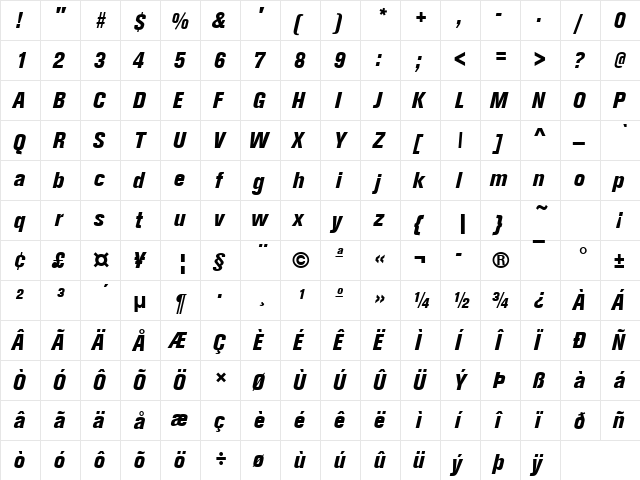
URWAccidaliaTHeaCon Italic Font Preview
URWAccidaliaTHeaCon Italic
Design Context for URWAccidaliaTHeaCon Typeface
URWAccidaliaTHeaCon takes a measured approach to typography — its balanced proportions and neutral character make it a reliable workhorse for both digital and print work. Its italic angle brings a sense of urgency and motion to the letterforms.